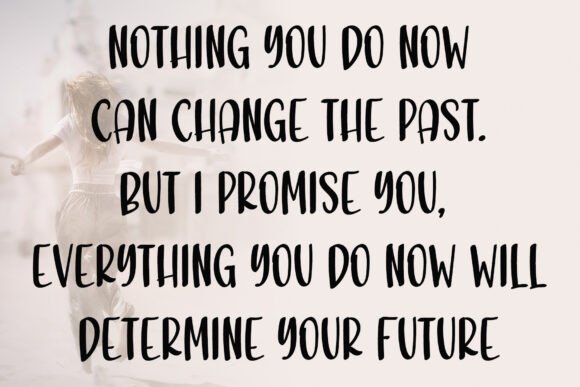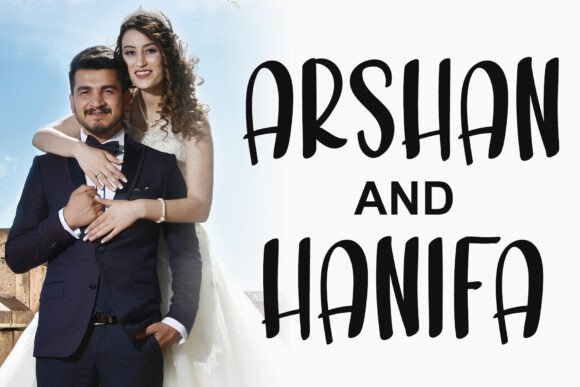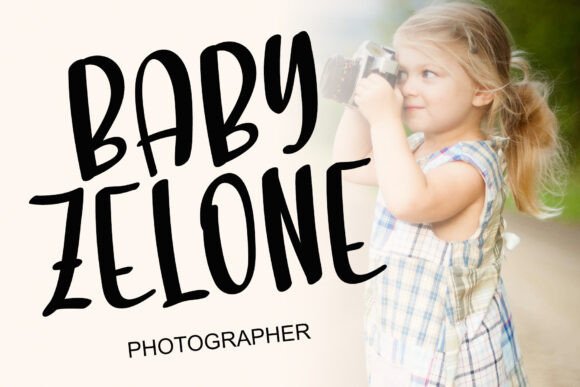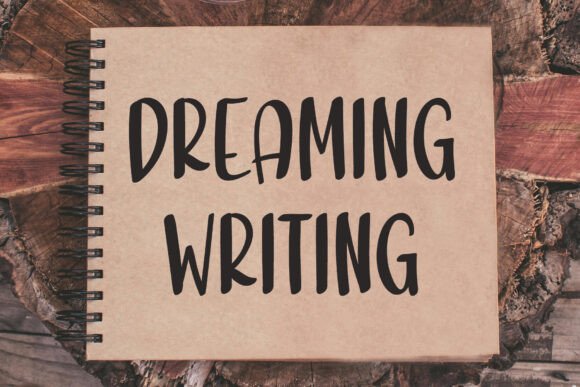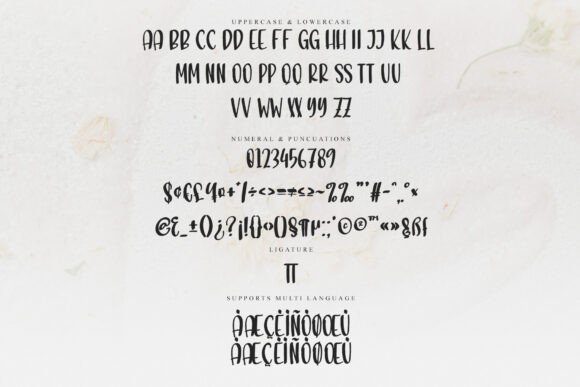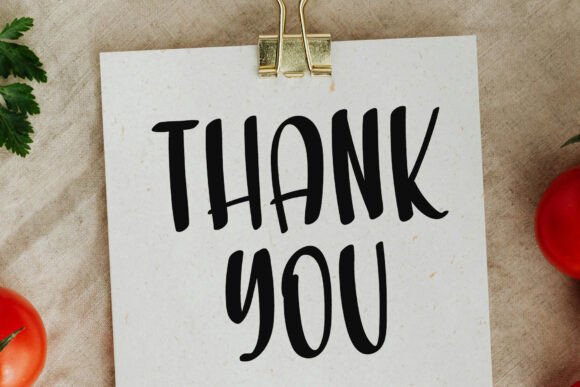
Introduction to Alphabet Vintage Font
Alphabet Vintage is a festive and playful typeface adorned with enchanting swashes.
Perfect for adding a touch of holiday magic to your Christmas cards, decorations, and more Spread the joy of the season with this whimsical font.
Key Features of Alphabet Vintage Font
Why Choose Alphabet Vintage Font?